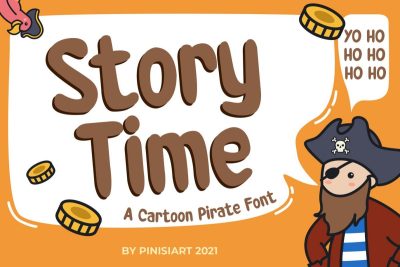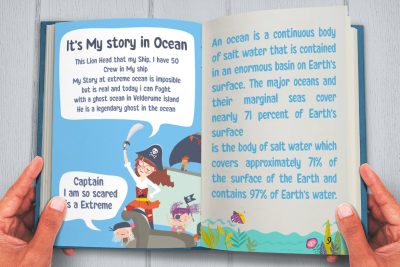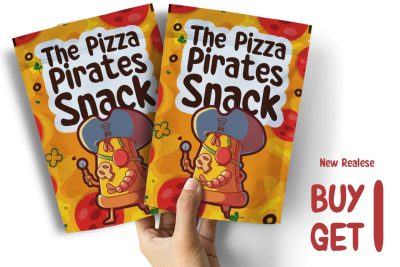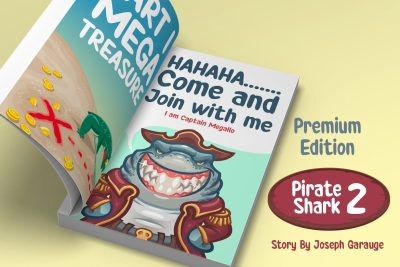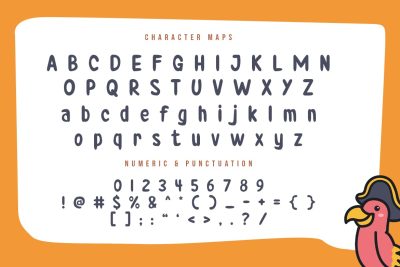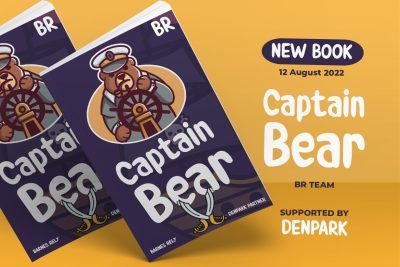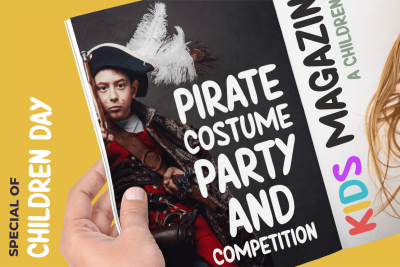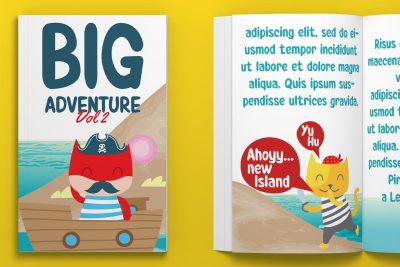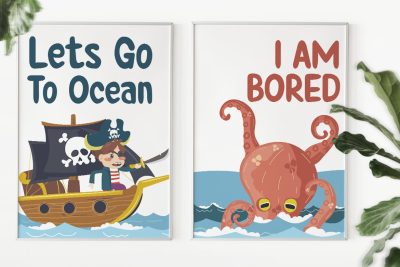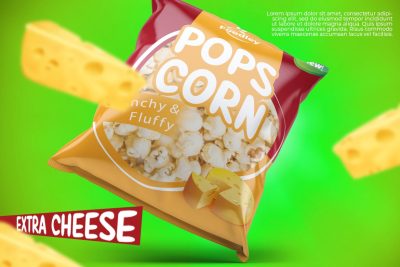
Kids font Story Time
Story Time
Kids font Story Time is a fun, cartoon-style typeface that brings a sense of adventure and excitement to any project. With its bold, rounded shapes and pirate-themed details, this font is perfect for sparking the imagination of young audiences. The playful design makes it both fun and easy to read, which is ideal for childrenโ€™s content.
The fontโ€™s charming and approachable style blends whimsical pirate elements with simple readability. Whether for a pirate adventure storybook or a birthday party invitation, Kids font Story Time adds personality to any design. It works well across different platforms, including print and digital media, while maintaining clarity and visual appeal.
Who Should Use Kids Font Story Time?
Story Time is great for a variety of creators and professionals focused on childrenโ€™s content.
• Childrenโ€™s Book Authors and Illustrators
Authors and illustrators will find Story Time perfect for their pirate-themed books. The bold, playful letters stand out in titles and headings while being easy for young readers to follow. Its whimsical style enhances the story, adding excitement to each page.
• Educators and Teachers
Teachers can use Story Time to create fun classroom materials. For example, it works great for worksheets, posters, or story prompts. The playful design helps capture the attention of young students, especially during pirate-themed lessons or activities.
• Graphic Designers and Event Planners
Graphic designers and event planners will love Story Time for its versatility. It works well for branding, invitations, or party decorations. Whether creating a logo for a childrenโ€™s brand or planning a pirate-themed birthday, this font adds a lively touch.
• Parents and DIY Enthusiasts
Parents and DIY creators can use Story Time for personal projects like party invitations or crafts. Its playful style makes it perfect for pirate-themed decorations or special event materials.
In conclusion, Kids font Story Time is perfect for anyone working on childrenโ€™s projects. Its combination of fun design and readability makes it ideal for storybooks, classroom materials, and more. Whether youโ€™re creating educational content, event invitations, or personal crafts, this font brings excitement and creativity to your work.
If you want a font that will make children hooked up on their book, read a lot, and take all information from it with a cheerful feeling, then, Storytime is what you need. The readability is top-notch, the rounded corner makes it friendlier.